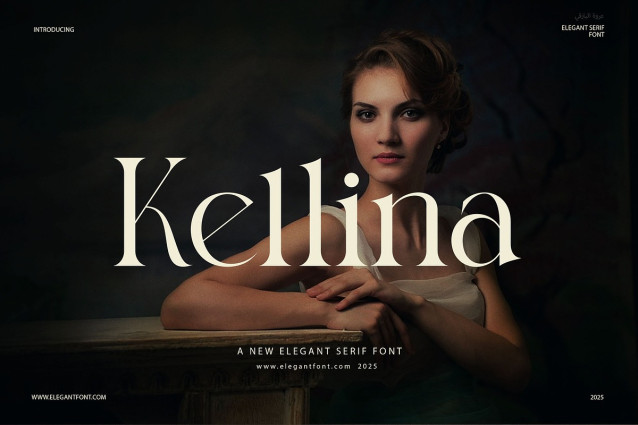
Kellina Font
Kellina Font – Elegant Serif is a graceful and refined typeface designed to bring timeless beauty to your work. With its soft curves, high contrast, and classic proportions, it creates a luxurious feel from the first glance. As a result, your designs will look polished, high-end, and memorable.
This font is more than just beautiful—it’s highly functional. Because of its elegant structure, it performs well in both print and digital formats. Whether you’re designing a wedding invitation, a luxury logo, or editorial content, Kellina adapts effortlessly. Additionally, it reads clearly at various sizes, which ensures visual impact on both large titles and body text.